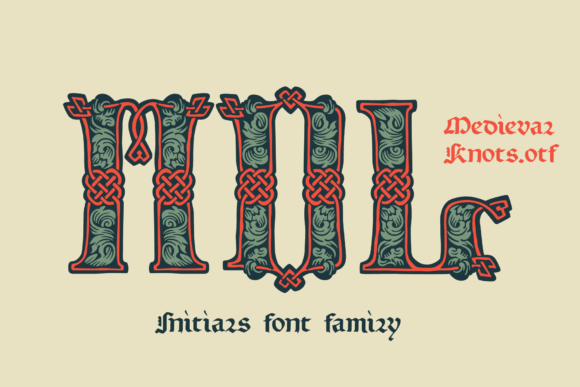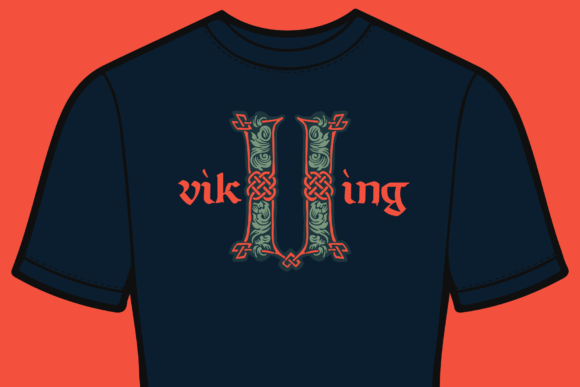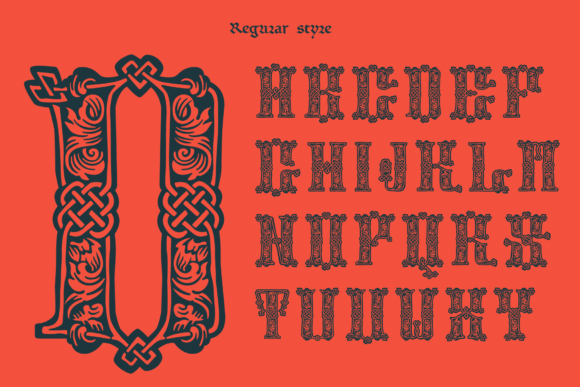
Medieval Knots Font
About the Medieval Knots Font
Introducing the Medieval Knots Font, a beautifully crafted typeface designed to elevate your creative projects. Medieval Knots is an incredible blackletter font inspired by Celtic knots initials and lines. It’s all you need to precisely imitate medieval-style text. Use this font as a decorative element at the beginning of a paragraph or section, while the rest of the paragraph should be written with a regular blackletter font in order to achieve the desired effect.
Medieval Knots excels as a decorative element in projects requiring a touch of medieval flair. Ideal applications include logos for breweries, historical societies, or fantasy-themed brands; it also works well in short headlines for posters or invitations. Avoid using it for body text or lengthy passages; its intricate detail reduces readability at smaller sizes.
The font’s personality is bold and ornate, conveying a sense of history and craftsmanship. Pair it with a clean sans-serif like Montserrat for contrast, or a more traditional serif like Garamond for a cohesive, classic feel. For a more modern approach, consider pairing it with a geometric sans-serif such as Futura.
Using Medieval Knots sparingly maintains its impact. Overuse can lead to visual clutter. Remember to always prioritize readability when pairing fonts.